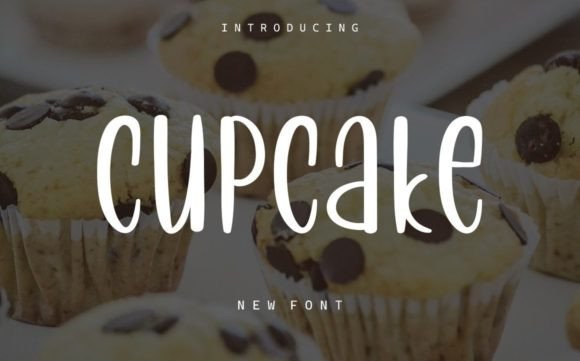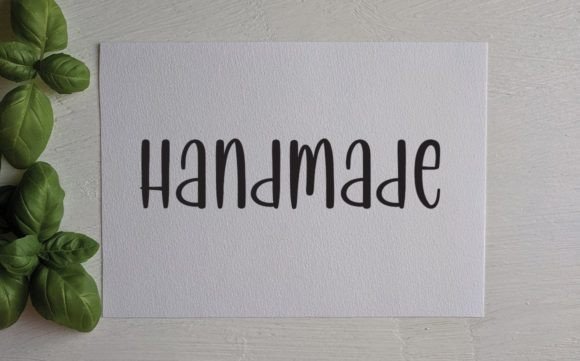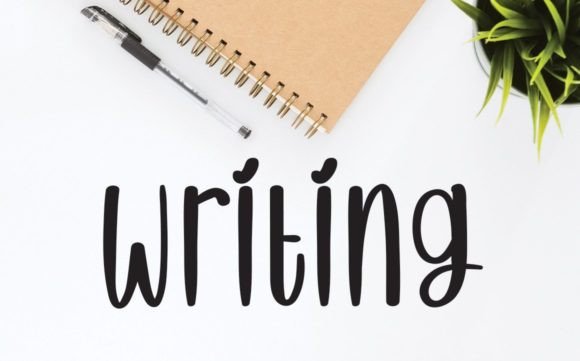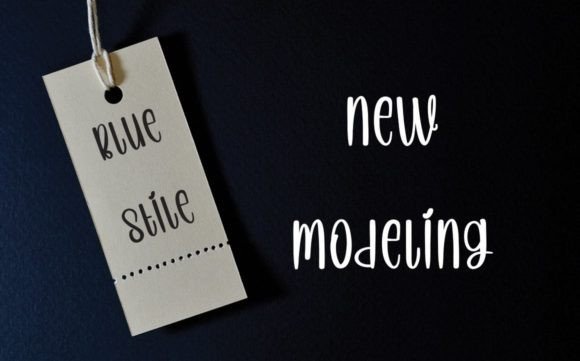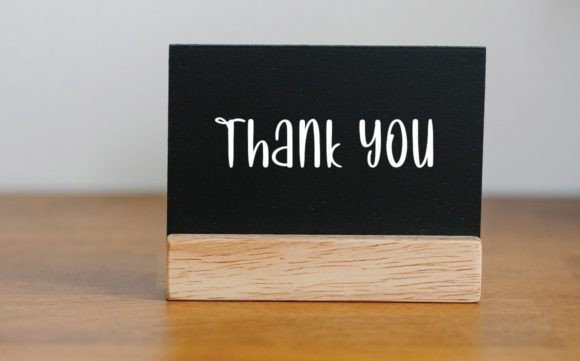
The Sweet Taste of Typography
Have you ever found yourself staring at a blank canvas, trying to conjure up the perfect design? The cursor blinks, and your mind goes blank. Suddenly, the sound of sizzling cupcakes wafts through the air, and you’re inspired. It’s moments like these that remind us of the power of typography in design.
Cupcake Font is a beautiful and flowing handwritten font, designed to elevate any project that requires impressive typography. From wedding invitations to social media post logos, Cupcake Font adds a touch of elegance and sophistication. For designers, it’s a valuable asset that can make even the most mundane projects stand out. With its versatility and charm, Cupcake Font is a must-have in any designer’s toolkit.
Cupcake Font Key Features
- Unique Characteristics: The Cupcake Font features a playful, cursive design with rounded edges and whimsical flourishes, making it perfect for adding a touch of elegance and sophistication to various designs.
Cupcake Font Review
Cupcake Font is a playful, cursive font that screams “treat yourself.” I have to admit, I was immediately drawn in by its whimsical vibe. ✨ The font’s irregular strokes and bubbly texture evoke the feeling of frosting on a freshly baked cupcake. It’s perfect for adding a touch of sweetness to your branding, packaging, or social media posts.
Here are some of the things I love about Cupcake Font:
- ✨ Unique and recognizable design that stands out in a crowded market
- ✨ Versatile font that works well for headings, titles, and short paragraphs
- ✨ Perfect for food, bakery, or dessert-related businesses
- ⚠️ May be difficult to read in large blocks of text or at very small sizes
- ⚠️ Can be overwhelming if used excessively or in combination with other bold fonts
Overall, I think Cupcake Font is a great choice for businesses or individuals looking to add a touch of playfulness and whimsy to their branding. While it may not be the best choice for formal or serious applications, it’s perfect for those who want to have a little fun with their design.
Use the Cupcake Font for whimsical and playful designs, such as:
Birthday invitations and party decorations
Food and dessert branding and marketing materials
Children’s books and educational materials
Remember to use the font in moderation and in combination with other design elements to achieve the desired effect.
Alternatives to Cupcake Font for Designers
Cream Soda Script
Cream Soda Script is a cursive, handwritten font ideal for adding a touch of whimsy to your designs. It’s perfect for titles, headings, and quotes that require a soft, elegant feel.
Compared to Cupcake Font, Cream Soda Script has a more subtle, refined look that’s suitable for a wider range of design applications.
Great Vibes is a beautiful, elegant script font that’s perfect for creating a sense of sophistication and luxury. It’s ideal for use in high-end branding, invitations, and special occasion designs.
Unlike Cupcake Font, Great Vibes has a more polished, refined look that’s better suited for formal designs.
Carolyna Pro is a modern, elegant script font that’s perfect for creating a sense of style and sophistication. It’s ideal for use in branding, advertising, and editorial designs.